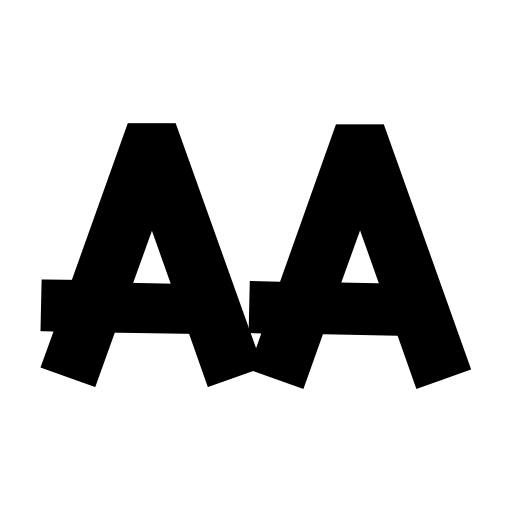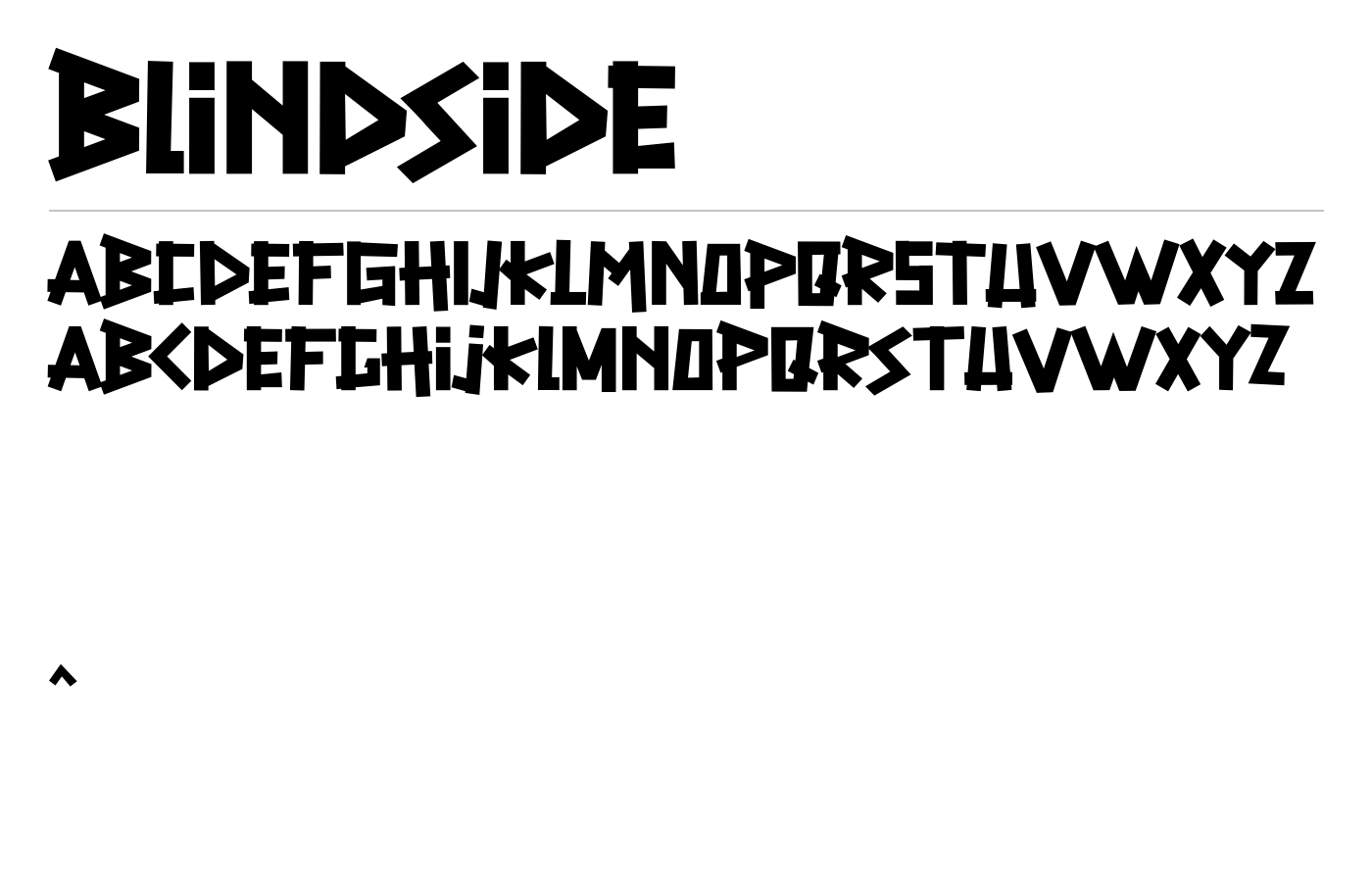
Blindside is a bold, geometric sans serif font with an edgy, hand-crafted look that combines uneven strokes and sharp angles. Its unique, playful style and irregular letterforms make it perfect for eye-catching headlines, posters, and branding that aim to stand out with a rebellious, fun personality. This font works best in creative, informal contexts where a strong and unconventional visual impact is desired.
Blindside Font
About Blindside Font
| Font family | Blindside Font |
| Designer | Sya'dan Ismail Rosyad |